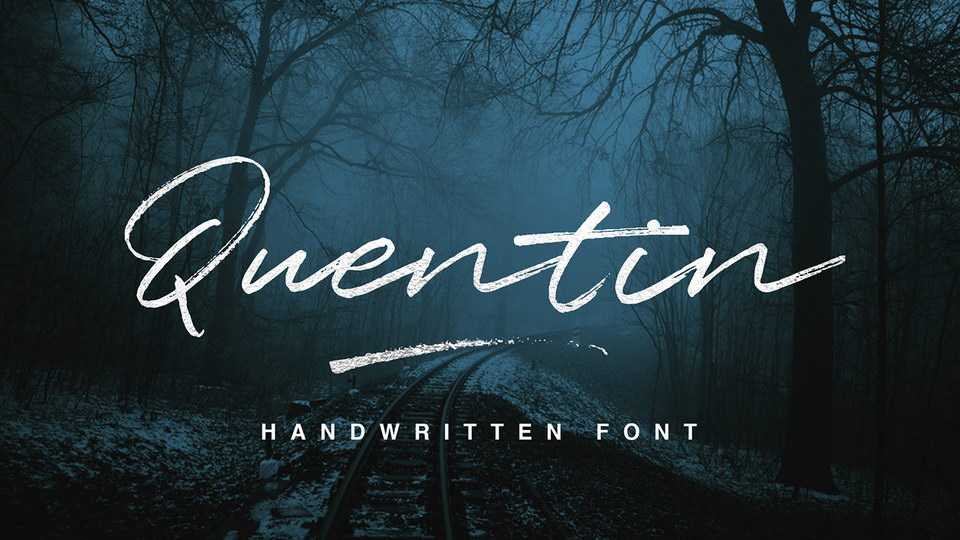
Download Quentin font, a stylish script that is coming from a handwriting. Quentin font turns out to look authentic with its rough texture from dry strokes.